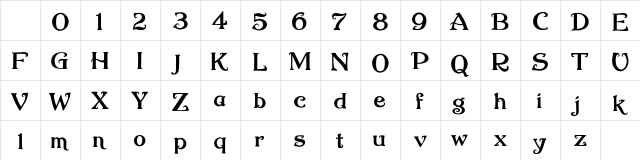
Nugie Romantic is a composed and adaptable typeface that performs quietly and consistently across a wide range of design contexts.
Pro Tip: Use Nugie Romantic in both headline and body roles to test its range before committing to a single application.